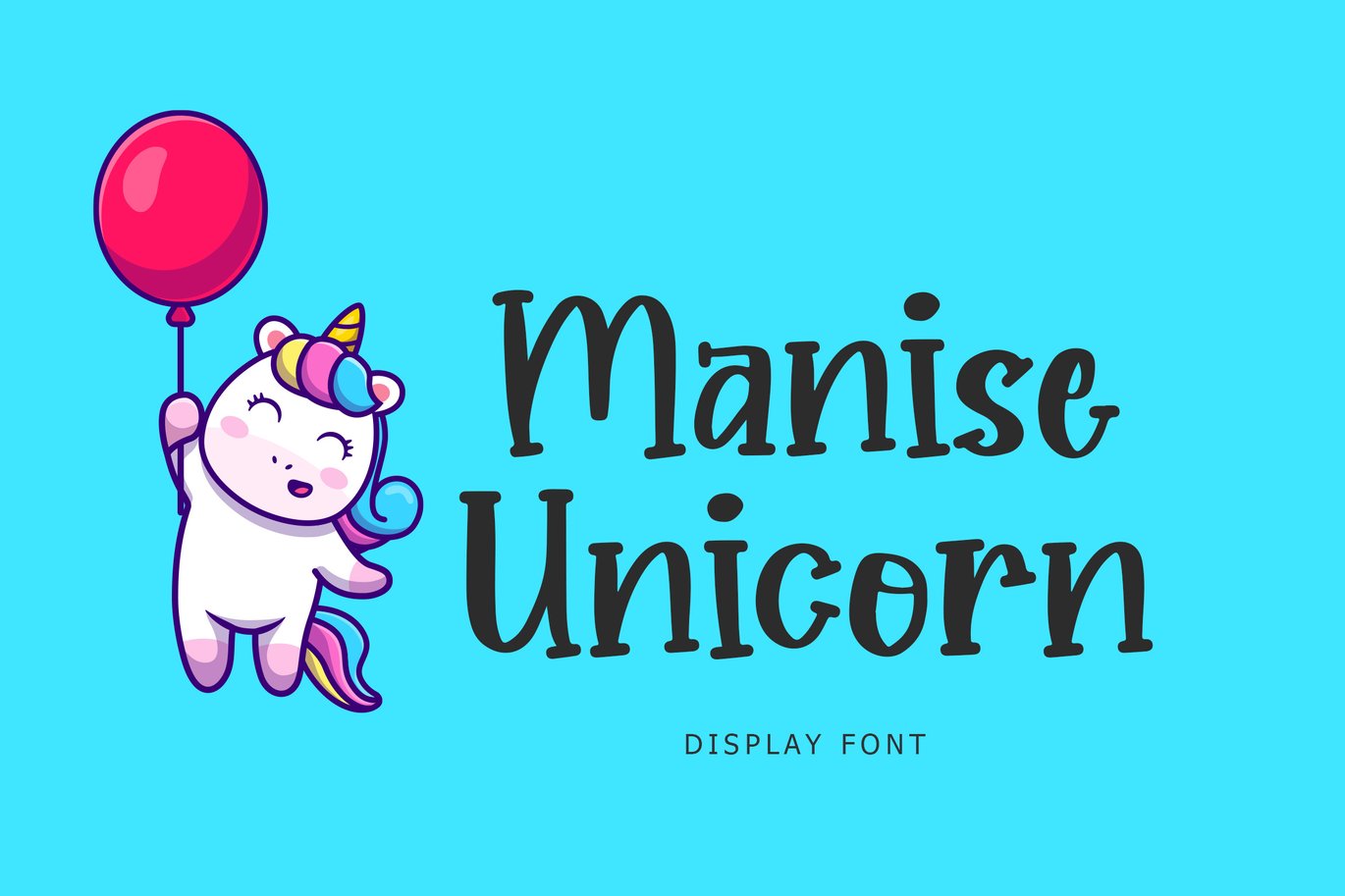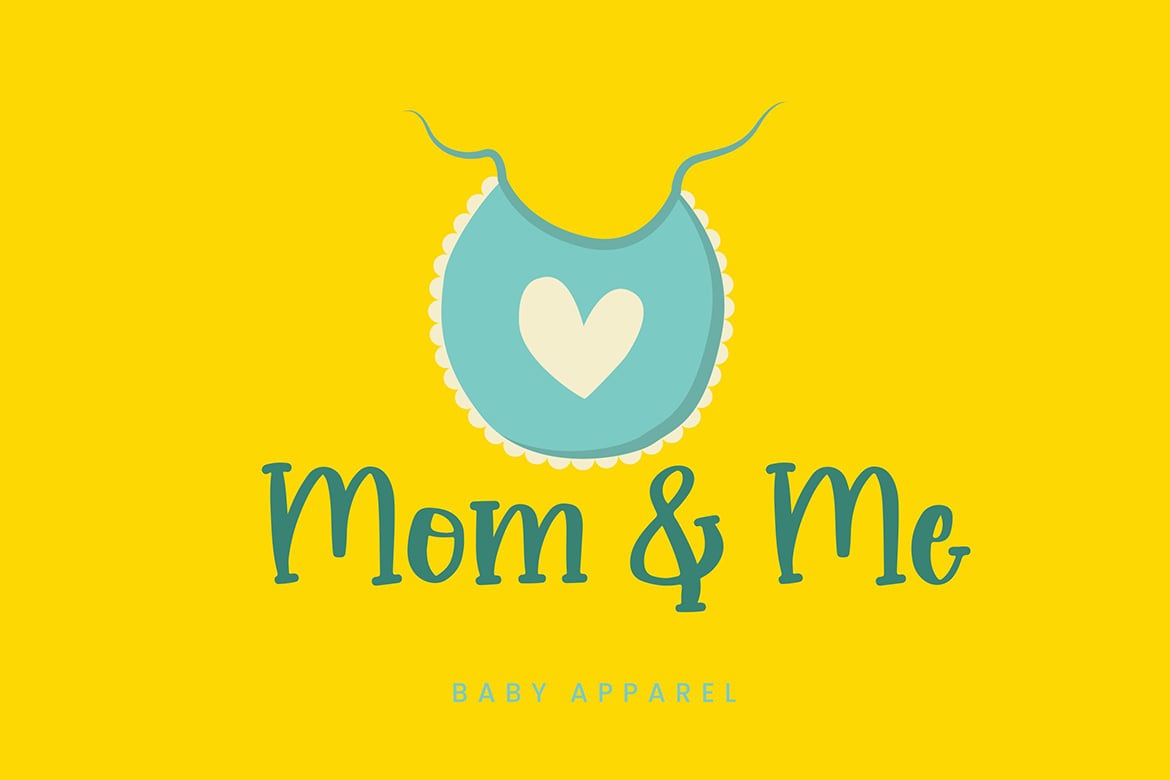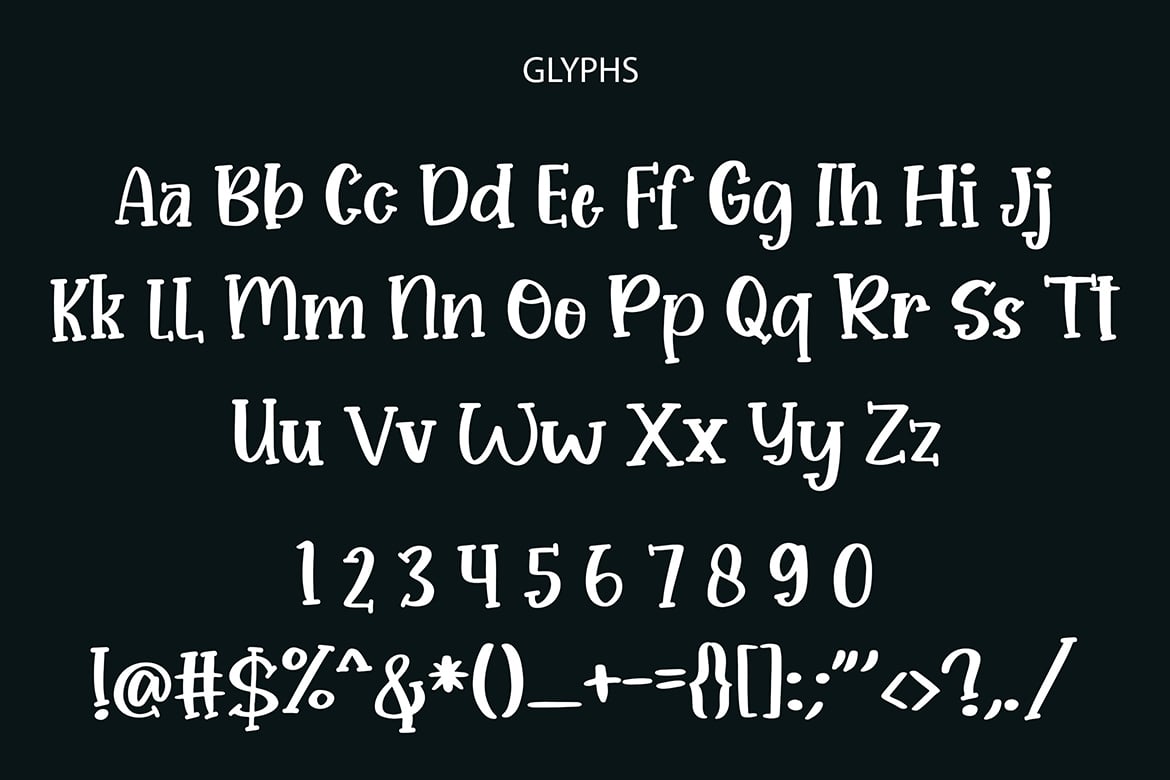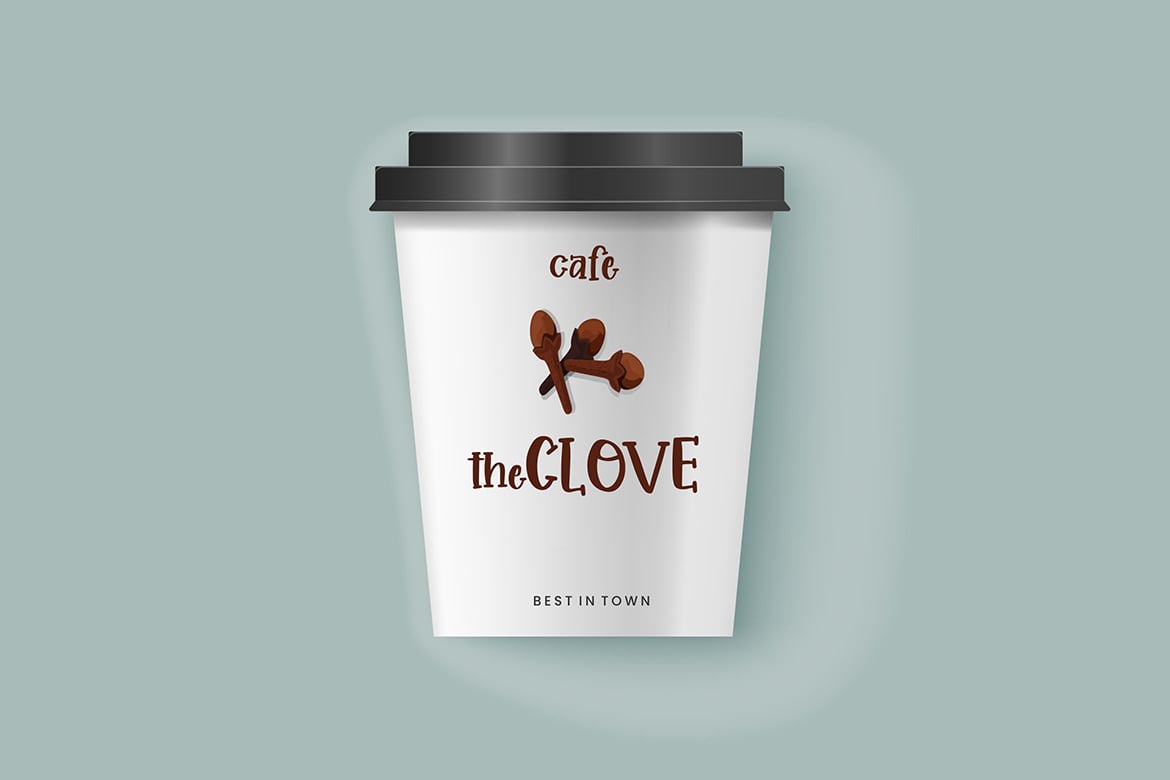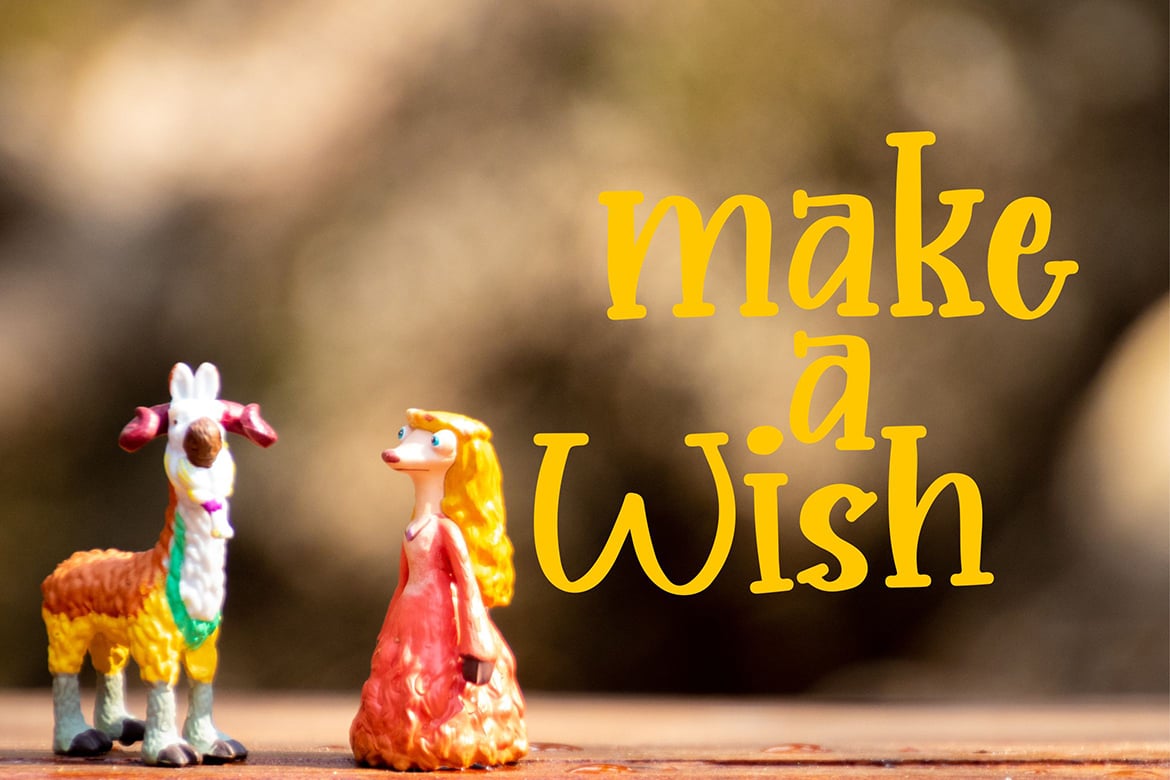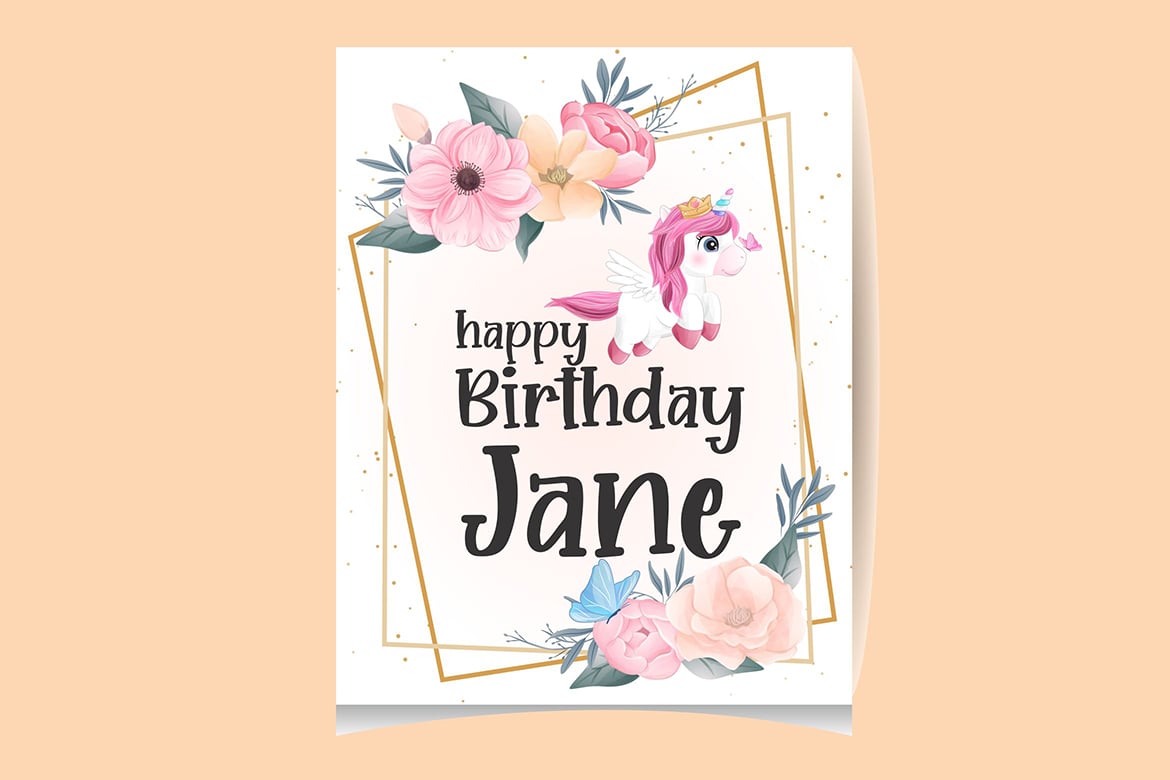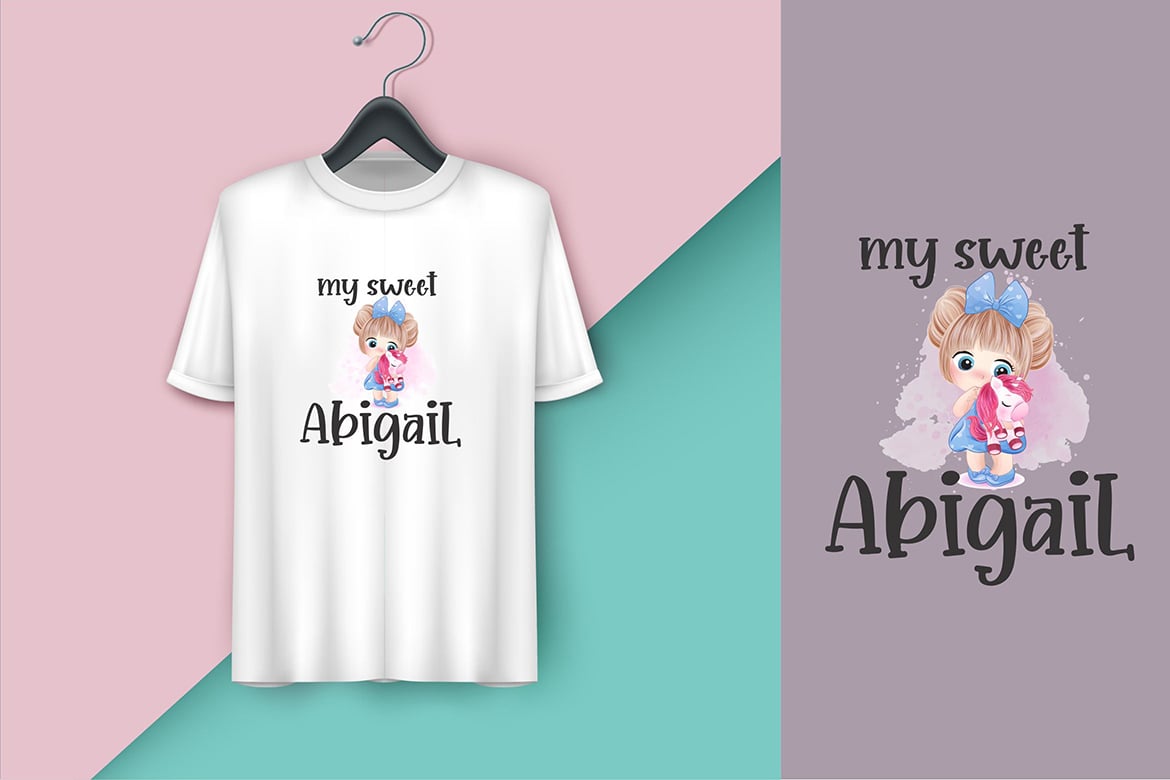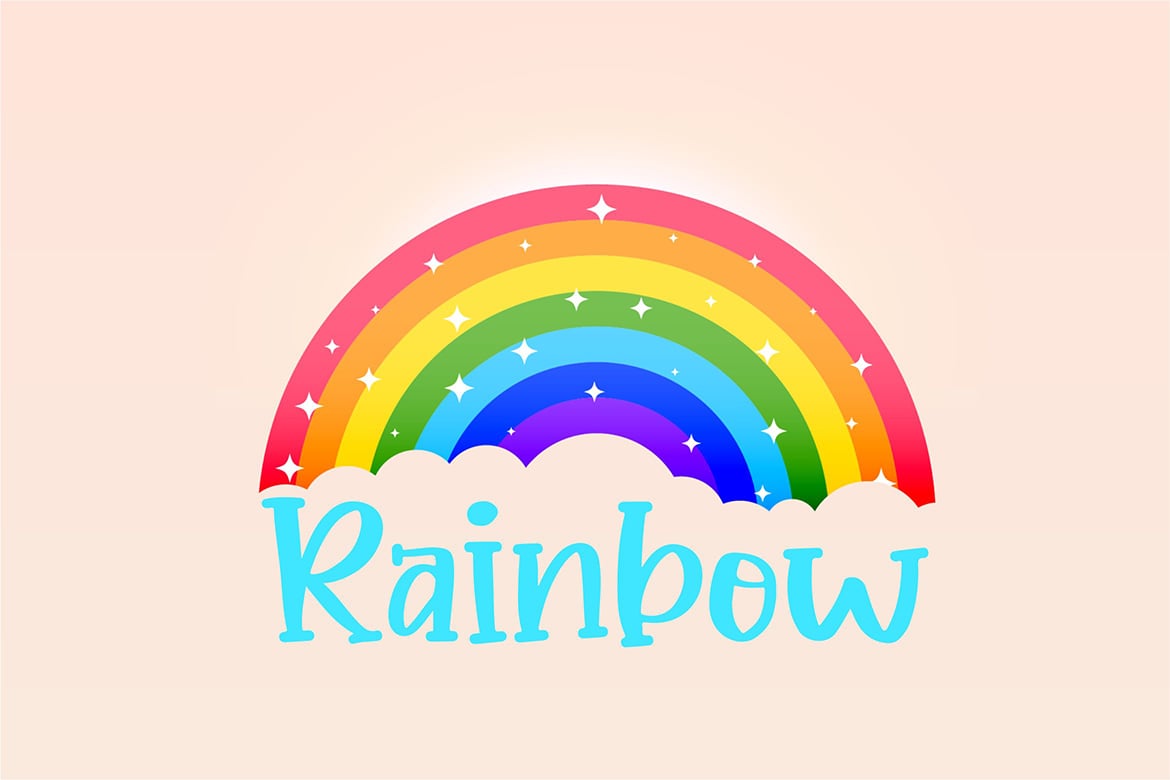
Manise Unicorn Display Font
Manise Unicorn is an exciting and extraordinary display font that will make any kid-themed design stand out!
Manise Unicorn is perfect for branding projects, logo, tshirt designs, book cover design, social media posts, advertisements, product packaging, product designs, label, watermark, invitation, stationery and any projects.